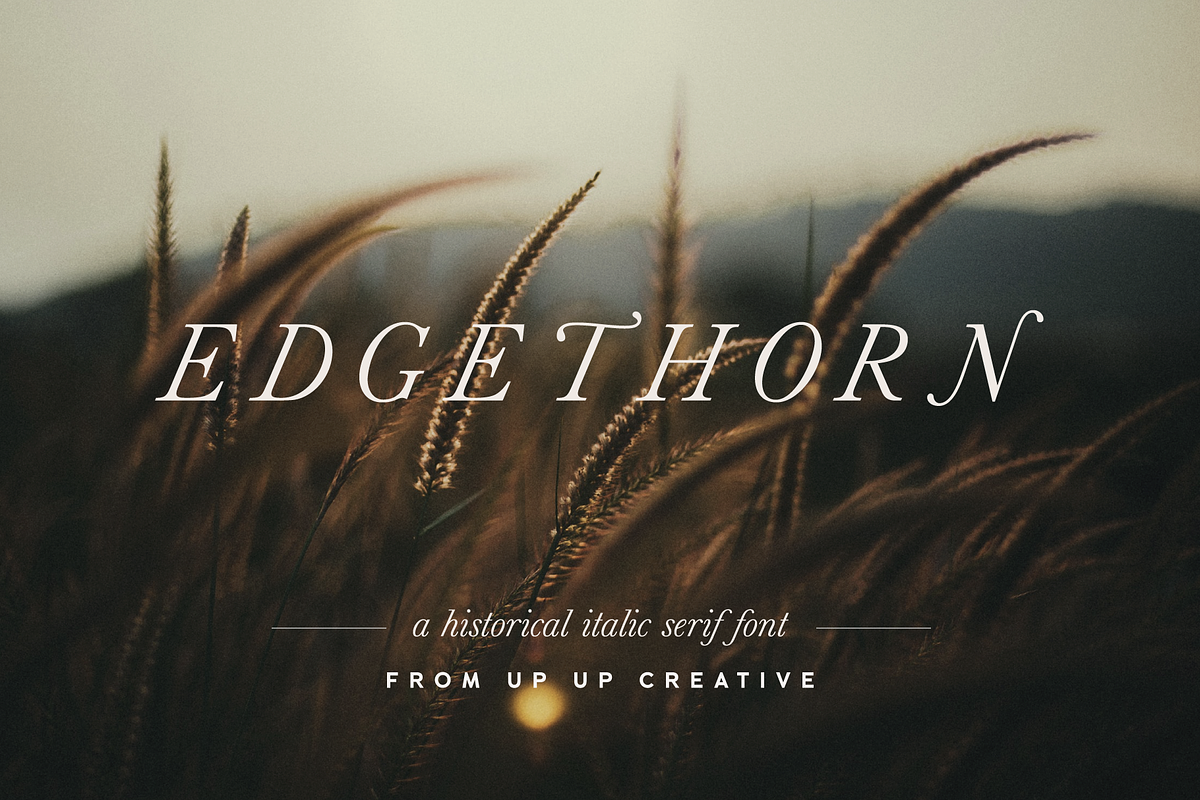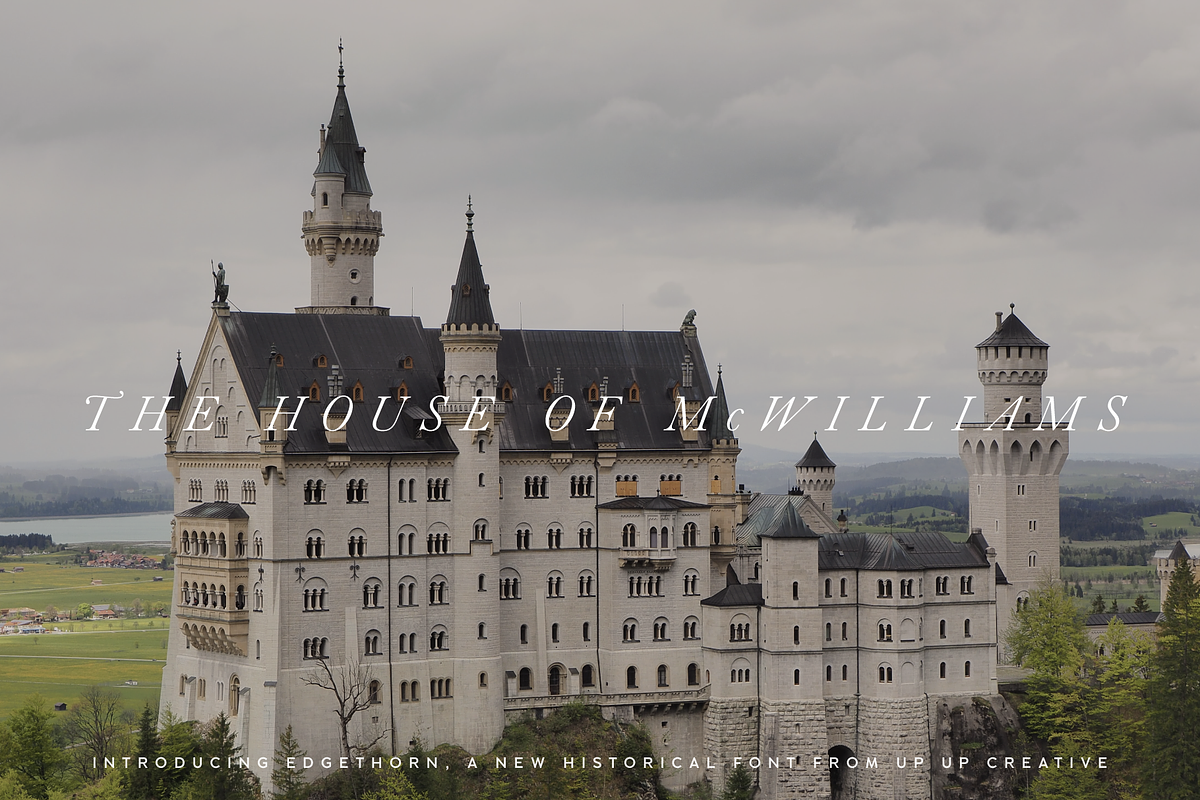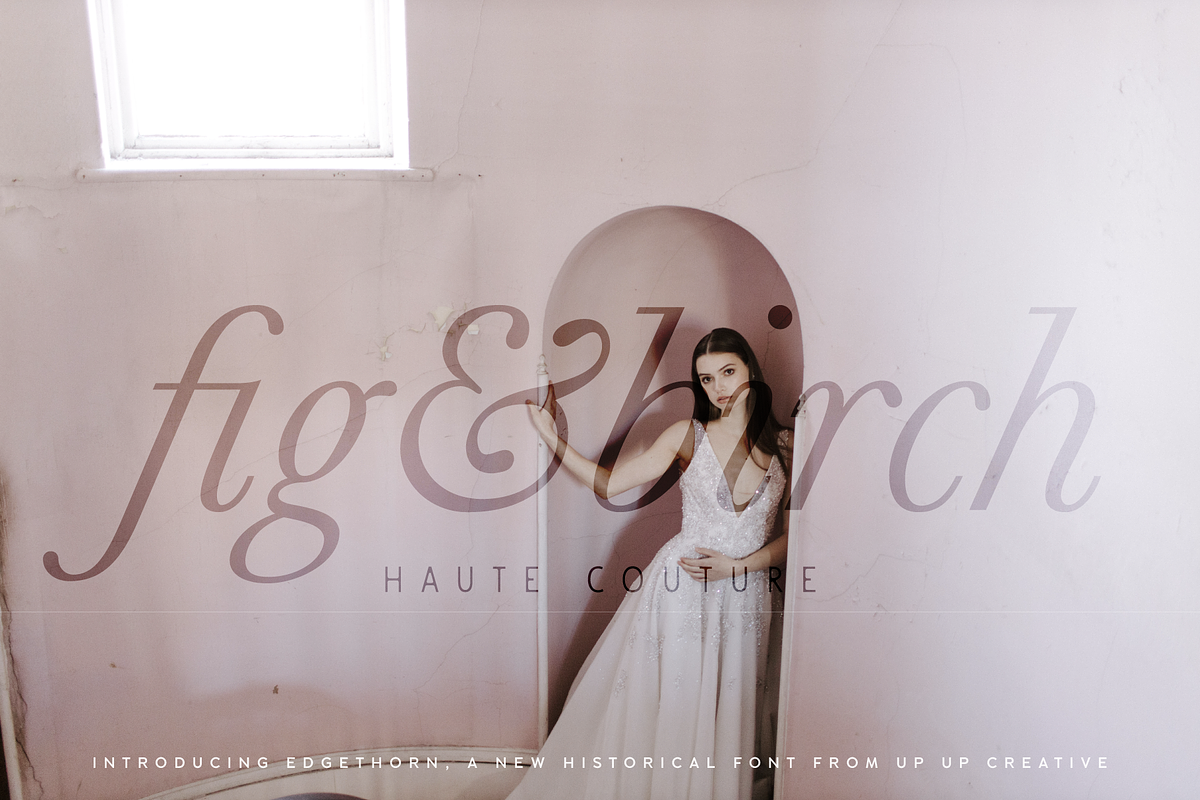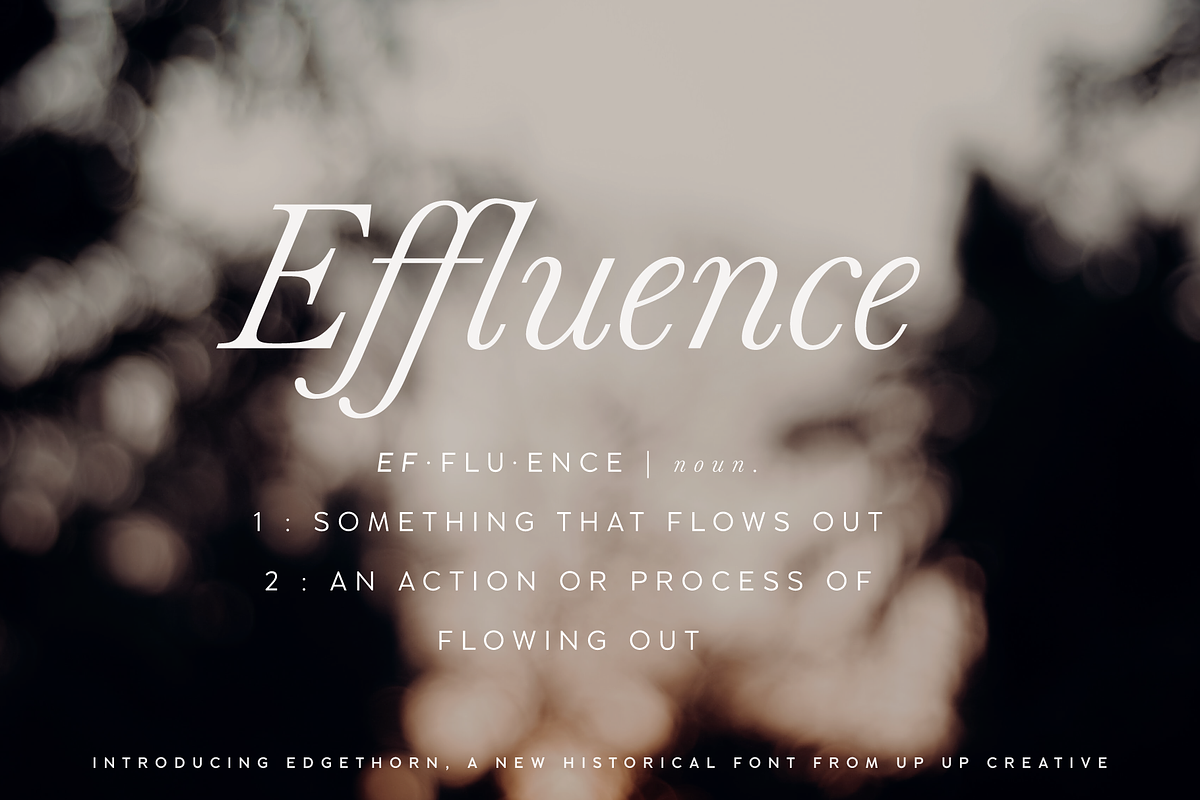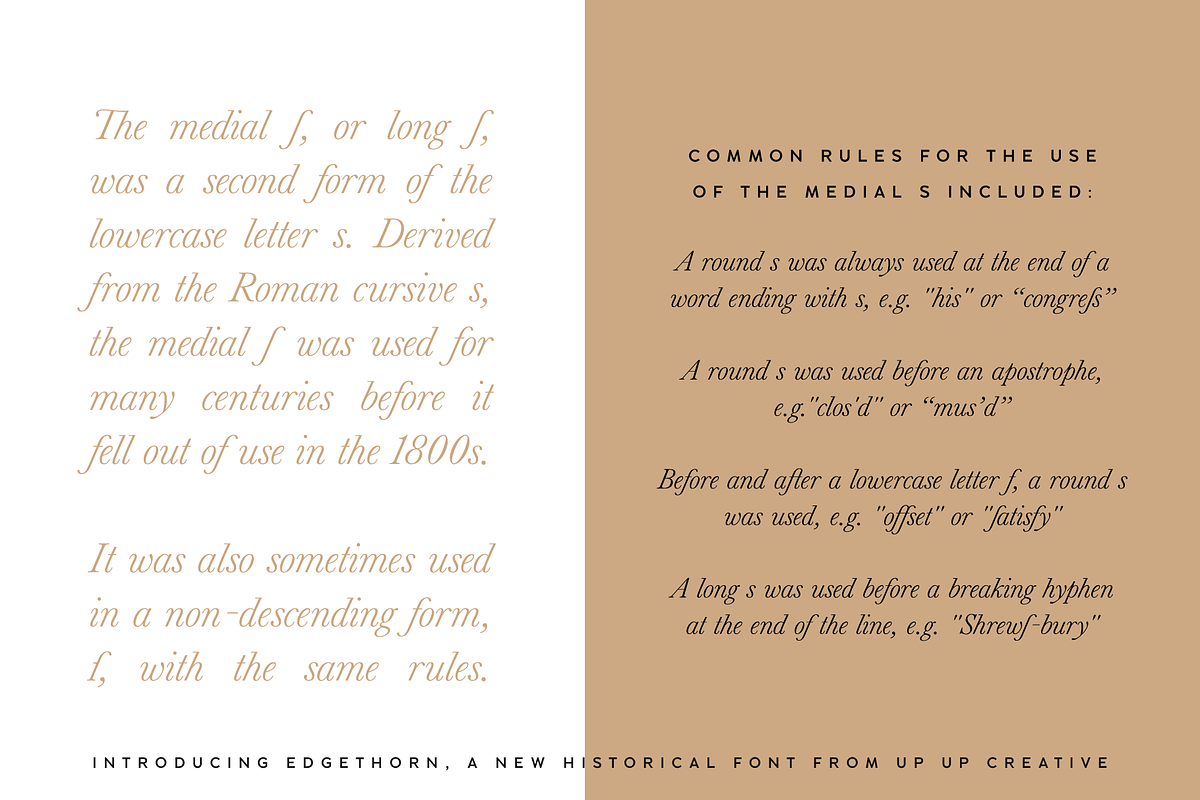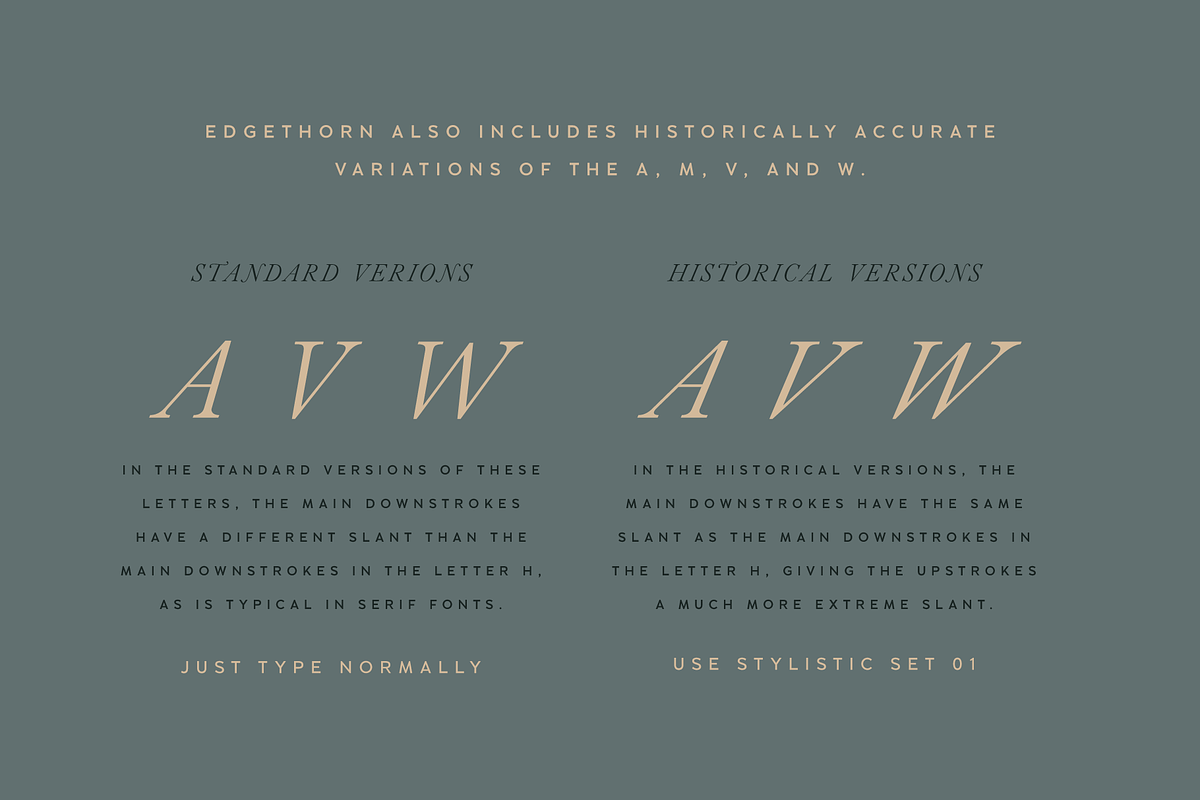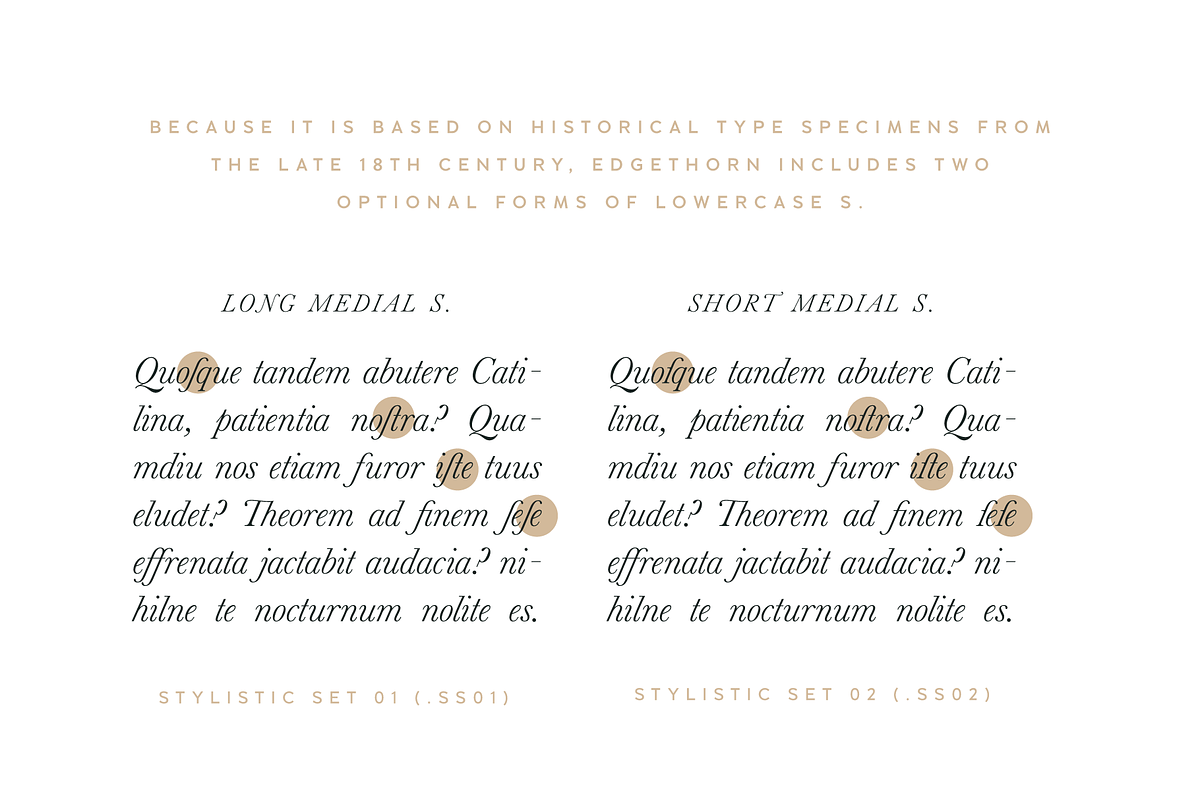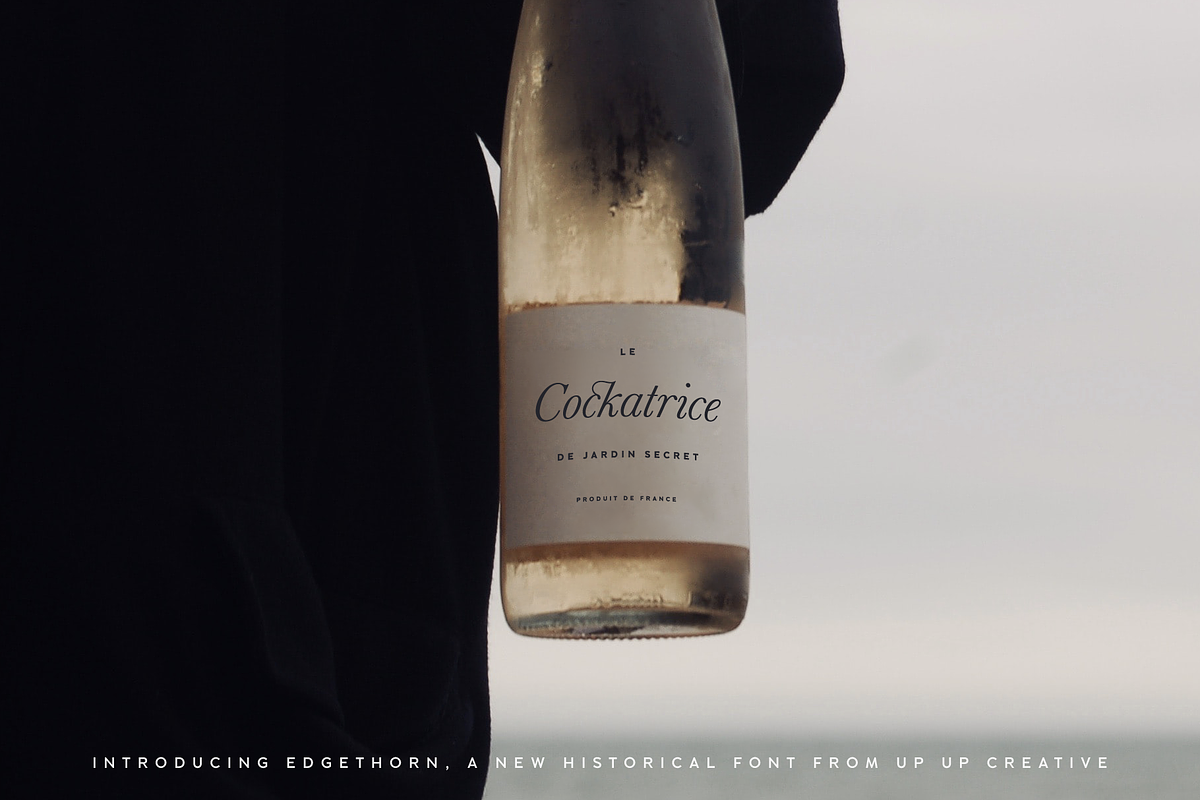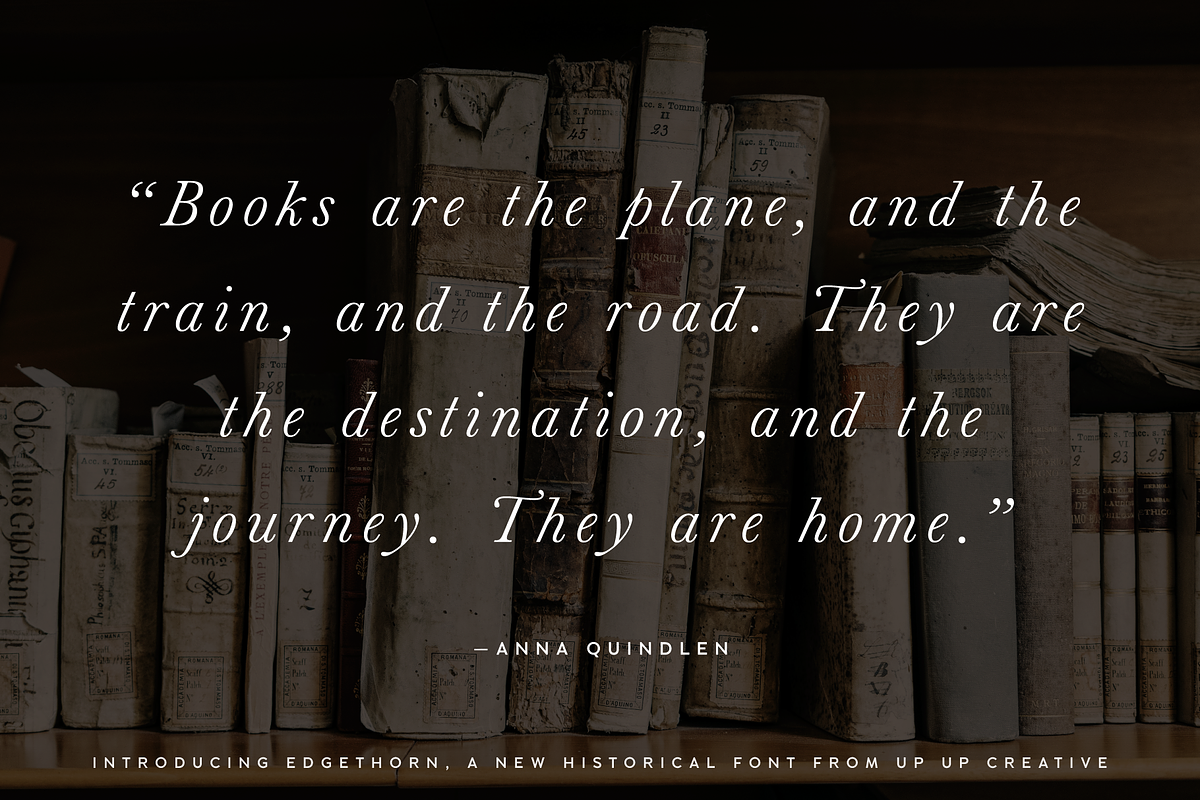
Edgethorn Italic Serif Font
Edgethorn is a beautiful, italic-only transitional serif typeface that was born after I became obsessed with a few small paragraphs of italic text on a type specimen broadside from 1785. Working on this type revival allowed me to delve much more deeply than I ever have before into type history and typeface classification, and I’ve included some type history for you with your download so that you can play around with the smattering of historical characters I included (like the medial s).
Although it is based on centuries-old typefaces, Edgethorn is elegant, timeless, and perfect for 21st century projects.
Edgethorn includes approximately 525 glyphs — including 64 standard and discretionary ligatures and a handful of contextual alternates and character variants — and supports over 200 languages.